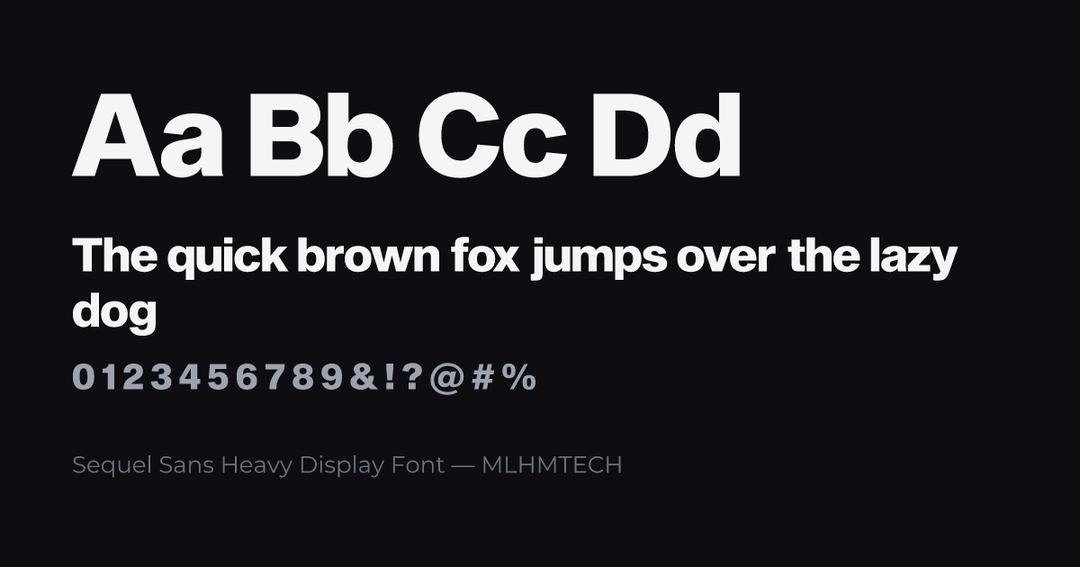
Sequel Sans Heavy Display Font
Sequel Sans Heavy Disp is a bold, geometric sans-serif font ideal for impactful headlines and modern branding. Its clean lines and heavy weight make it stand out in any design.
Sequel Sans Heavy Disp is a high-contrast, geometric sans-serif typeface that commands attention. Its heavy weight and clean, modern design make it perfect for headlines, posters, logos, and any project that needs a strong visual impact. The font's uniform strokes and open counters ensure excellent legibility even at large sizes.
Please note that this is a display font, best used for short text and headings. For body text, consider pairing it with a lighter weight or a complementary serif font for optimal readability.